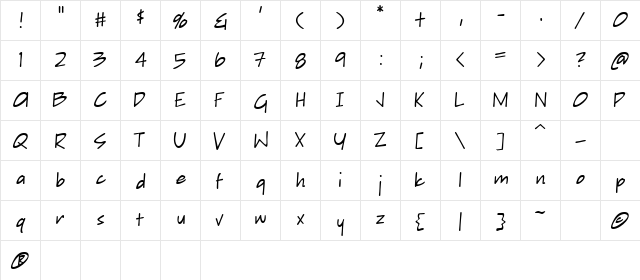
Sketchpad Note Regular
Design Context for Sketchpad Note Typeface
Sketchpad Note is a composed and adaptable typeface that performs quietly and consistently across a wide range of design contexts.